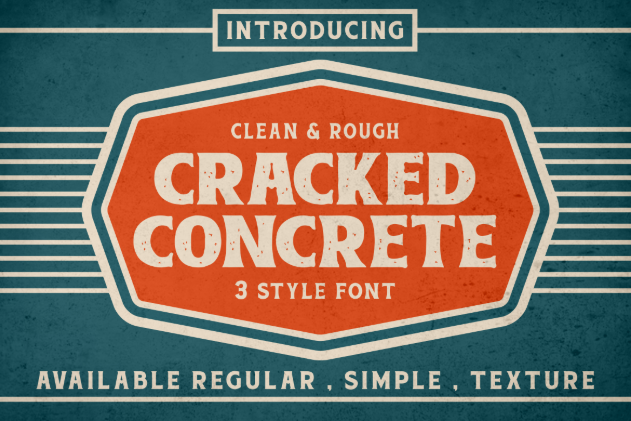
Cinematic Fonts play a vital role in shaping the visual identity of your movie trailers, posters, and video edits. The right typeface can instantly convey mood, genre, and intensity. We bring diverse variations of fonts for this particular purpose. Find them in the list below.
- With the correct font, you can merge vibe and type that evokes immersion.
- Cinematic font shapes how films are perceived and remembered.
Cinematic Fonts for Various Genres
It’s essential to consider selecting fonts based on the mood and message. We’ve compiled 5 high-quality fonts for horror, playful, romance, techno, and vintage vibes respectively. Here are our top font selections for your next cinematic projects!
Horror
1. Unburied
Unburied horror serif font has a striking appearance with its thorny letterforms. Its condensed gothic base helps add dark vibes to any text.
2. Torn Flesh
Torn Flesh is the best font for cinematic titles with horror factors. Its unforgiving sinister look immediately creates terror and suspense, especially with its distressed letterforms.
3. Pumpkin Stare
If you’re fusing a scary movie with comedic elements, Pumpkin Stare is the perfect font for your project. This font evokes spooky vibes on fun and vibrant letterforms.
4. Abyzoth
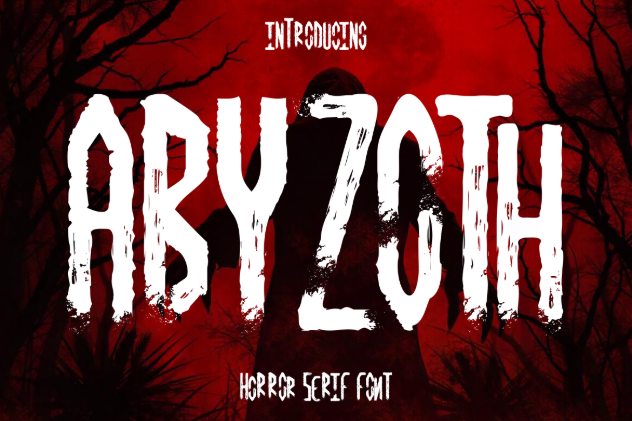
Along with its horror vibes, Abyzoth also evokes mysterious and uneasy aesthetics. Its unfinished strokes and textured style still provide decent readability.
5. Spookies Identity
Spookies Identity is one of the ideal fonts for titles or headlines for horror movies or videos. Its raw horror vibes signifies helplessness and alien atmospheres.
Playful
6. Vibe Tribe
For a futuristic and comedic film, use Vibe Tribe. This energetic Y2K font balances modern and nostalgic vibes with its rounded letterforms, vibrant colors, and pixelated ornaments.
7. Spectrum Spiral
For your playful and cinematic fonts, Spectrum Spiral is a great option. This font has vibrant and captivating visuals, blending ransom note style with more uniform letters.
8. Sailing Scribe
Sailing Scribe is a playful font with icons attached to the letters, mainly surrounding pirate-themed icons. This font has nine styles to mix and match.
9. Airy Wonders
To bring a whimsical and joyful atmosphere, just use Airy Wonders. This balloon font perfectly captures the bubbly, chubby look for your fun and comedic movies.
10. Dynamic Drips
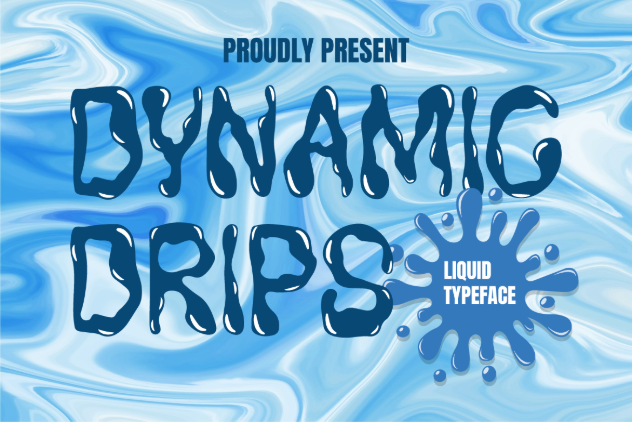
For more versatile video editing materials, Dynamic Drips can be a great option. This liquid font can splash its fresh look on your musical, trip, or advertisement content.
Romance
11. Beloved Grace
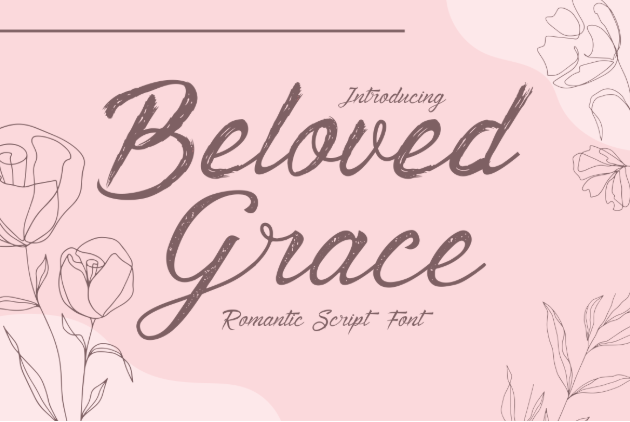
If you’re looking for a romantic font for your next film, use Beloved Grace. This script font has a beautiful and natural look, showing vulnerable and delicate vibes.
12. Brush Blitz
Brush Blitz is one of the best fonts for cinematic videos, manifesting the spirit of art and freedom. This dry-brush-styled font will also seamlessly merge into your romance-genre movie poster.
13. Enchantia
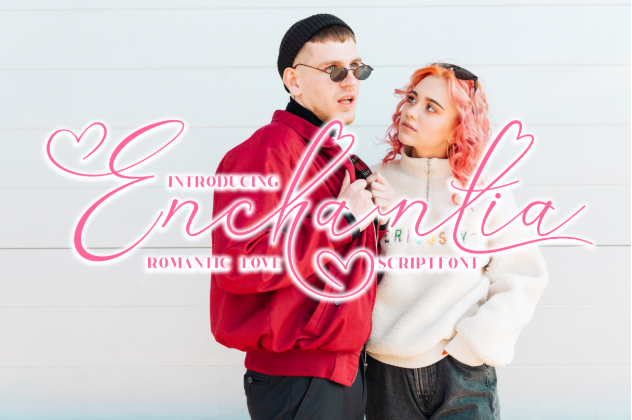
A lovely and romantic option for your drama is Enchantia. This script font utilizes its thin strokes to make elegant letterforms and simplistic love-shaped ornaments.
14. Blooming Memories
Blooming Memories is more than just a romantic font. Its calligraphic touch expands beyond ornaments, evoking intimate vibes with typography.
15. Valentijn
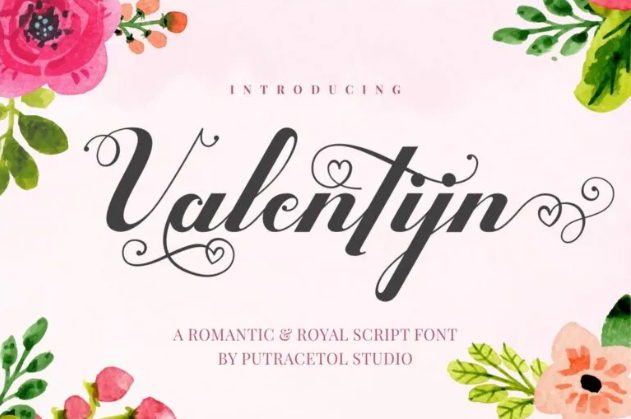
When aiming for lavish, romantic fonts, better use Valentijn. This font has captivating beauty for your movie title and poster materials.
Techno
16. Spectra Volt
Spectra Volt is an intricate futuristic font for your techno-themed films. Its sharp, angular edges, combined with segmented designs capture digital circuitry and cyberpunk aesthetics.
17. Techno Wave
Techno Wave is a more childish and fun version of the techno aesthetic. This Y2K font uses bold, quirky letterforms with pixelated edges, resulting in eye-catching text.
18. Pyra Maze
As the name suggests, Pyra Maze has a maze-like look. Its intricate geometric typeface combined with its 3D option creates a futuristic illusion for your designs.
19. Digitechno
A simplistic option for your futuristic movies, Digitechno. Based on its oval shape, this font combines sharp angles and circuitry ornaments.
20. Sonic Surge
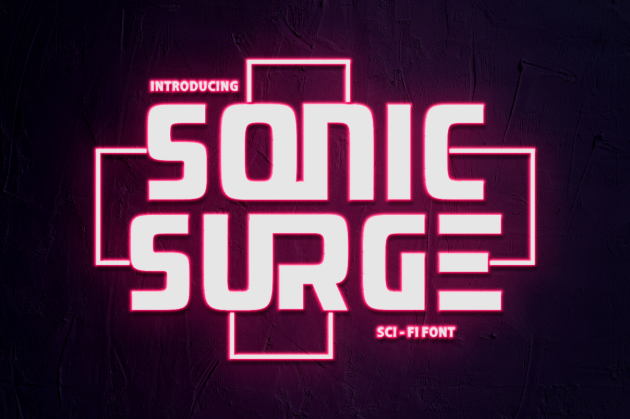
Sonic Surge is a rather wild futuristic typeface. This font has a surprising design for every other letter. Incorporating cinematic fonts like this can create a unique title text.
Vintage
21. Ranch Hand
Ranch Hand is a vintage font with Western aesthetics. This font has 7 styles, including texture and shading, adding unique touches and a cohesive look throughout your poster, trailer, and videos.
Grab the Iconic Cinematic Fonts Now!
Cinematic fonts are the bridge between visuals and emotions. In trailers, these fonts create anticipation, in posters establish mood, and in video edits they add polish professionalism.